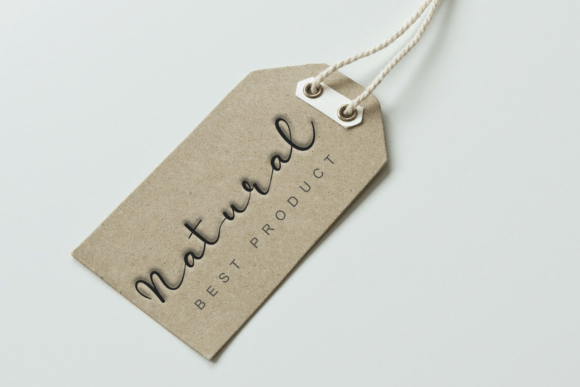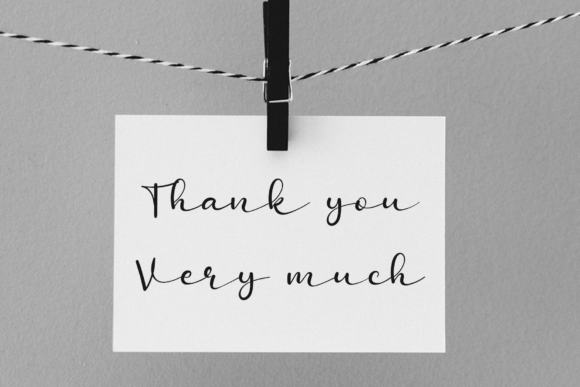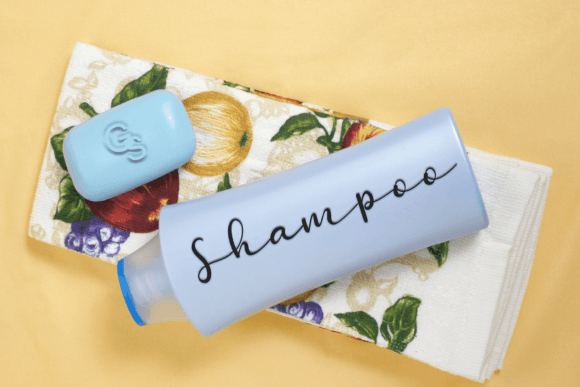
About Simple Planner Font
**Discover Simplicity and Charm with Simple Planner: A Perfect Blend of Elegance and Versatility**
In the world of design, finding the right font can be akin to discovering a hidden treasure, and Simple Planner is one such gem that promises to add an element of understated sophistication to your creative endeavors. In the realm of typography, it’s often the understated fonts that make the most significant impact, and Simple Planner stands tall in this regard.
At its core, Simple Planner embodies an effortless simplicity that is both refreshing and elegant. Its thin-lettered, handwritten style exudes a unique charm, capturing the essence of handwritten notes while retaining a sense of refinement. The strokes are delicately crafted, each letter meticulously designed to maintain a balance between simplicity and style. This font is a testament to the beauty of subtlety; it doesn’t shout for attention but effortlessly commands it.
What makes Simple Planner truly exceptional is its adaptability. This versatile font effortlessly integrates into a myriad of design ideas. Whether you are working on a website, creating social media posts, designing wedding invitations, or developing branding materials, Simple Planner effortlessly complements your vision. Its sleek and minimalistic design lends itself well to a variety of contexts, enhancing the visual appeal of your projects without overwhelming the viewer.
Imagine a handwritten note from a close friend, where the words flow seamlessly, conveying warmth and sincerity. Simple Planner replicates this feeling, adding a touch of authenticity to your text. It becomes more than just words on a page; it becomes a personal message, a whisper of genuine emotion that resonates with anyone who reads it.
One of the standout features of Simple Planner is its ability to infuse a sense of fun and friendliness into your projects. The font carries an inherent playfulness, making it ideal for designs that require a lighthearted and approachable tone. Whether you are designing greeting cards, playful product packaging, or children’s book covers, Simple Planner injects a sense of joy into your creations, making them memorable and endearing to your audience.
In a world inundated with complexity, Simple Planner offers a refreshing break. It strips away the unnecessary embellishments and presents a font that is pure, genuine, and utterly charming. It invites you to embrace the beauty of simplicity and celebrate the power of unpretentious elegance.
So, if you are seeking a font that effortlessly combines simplicity, charm, and versatility, look no further than Simple Planner. Let it be the brushstroke that paints your creative visions into reality, adding a touch of sophistication and a dash of friendliness to every project you undertake. Elevate your designs, enchant your audience, and embrace the art of simplicity with Simple Planner.